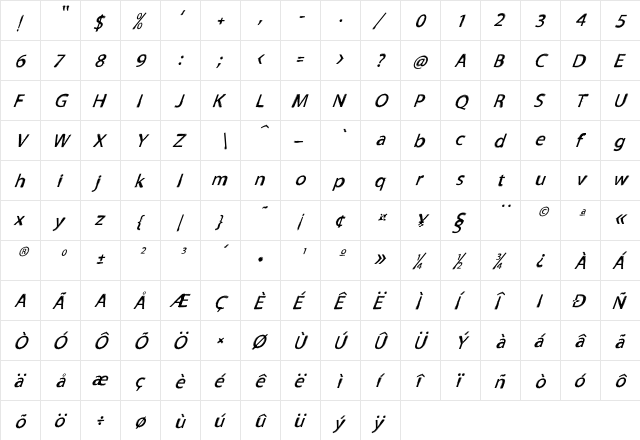
TNEWPRO NormalItalic Font Preview
TNEWPRO NormalItalic
TNEWPRO NormalItalic Font Details
Design Context for TNEWPRO Typeface
TNEWPRO takes a measured approach to typography — its balanced proportions and neutral character make it a reliable workhorse for both digital and print work. The slanted form adds forward momentum and visual energy.
Pro Tip: Use TNEWPRO for emphasis, pull quotes, and subheadings where its slanted energy can add rhythm to the layout.